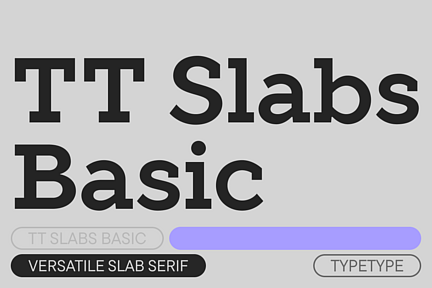
TT Slabs Thin Italic
World needs a beautiful, simple and high-quality typeface. We need simple and geometric fonts. Slab is a form of serifs, which gave its name to the font family. If you are looking for a versatile font with wide proportions for your projects — TT Slabs will suit you perfectly.